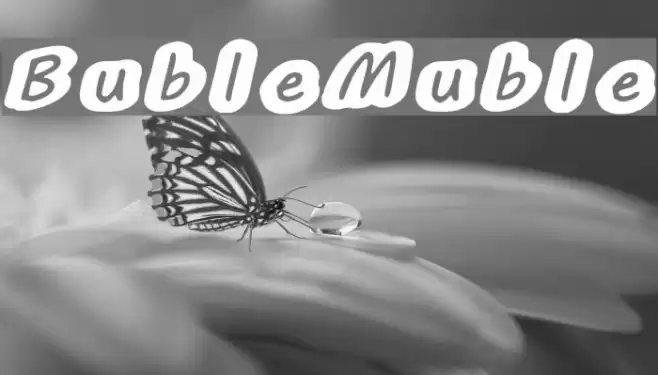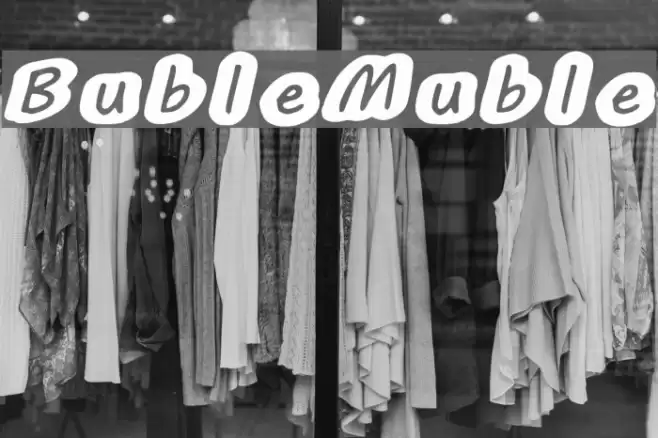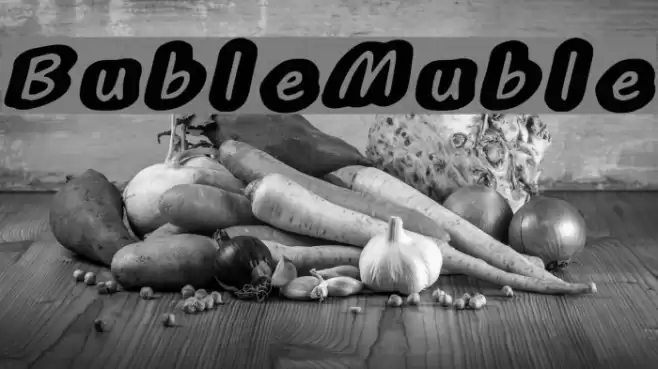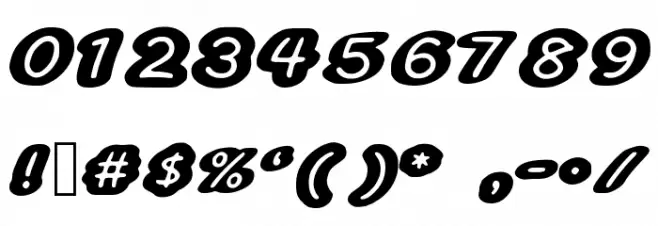
BubleMuble Font
BubleMuble Description
This playful and bold font features rounded, bubble-like characters that convey a sense of fun and whimsy. The letters are thick and have a strong presence, making them ideal for attention-grabbing designs. Each character is outlined, adding an extra layer of depth and dimension. The font maintains a consistent weight throughout, with smooth curves and a slightly condensed appearance. The spacing between characters is tight, enhancing its compact and cohesive look. This style is perfect for projects that require a lively and energetic feel.
A bold, playful font with rounded, bubble-like characters and tight spacing from Comic fonts.
- Proposed Projects: Ideal for children's books, playful branding, party invitations, and eye-catching posters.
- Character Spacing: Tight
- Overall Style: Playful, Fun